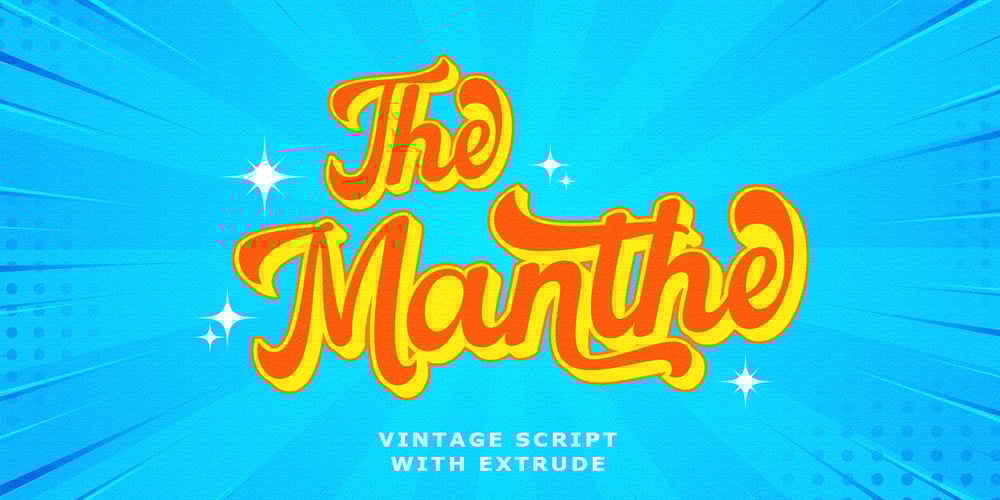
The Manthe
The Manthe font
The Manthe Font Family was designed by Muhajir and published by Skinny Type. The Manthe contains 2 styles and family package options. The Manthe is our another bold script typeface. Use this typeface and you will make a retro design with ease! Combined your design with dozens of stylistic alternates and elegant swashes which is included in this typeface, this retro typeface is really perfect for logo design, t-shirt, vintage and retro badge, vintage quotes, branding, packaging, etc.The Manthe features:A full set of upper & lowercase charactersNumbers & punctuationMultilingual language supportPUA Encoded Characters+301 GlyphUp to 80 Stylistic Alternates with Swashes and Ligatures!OpenType FeaturesEnjoy and happy designing